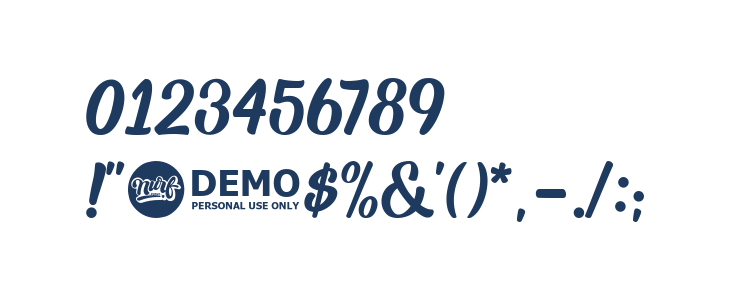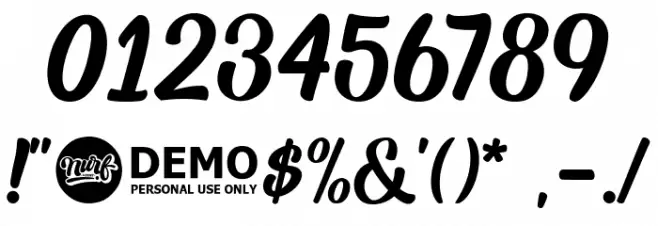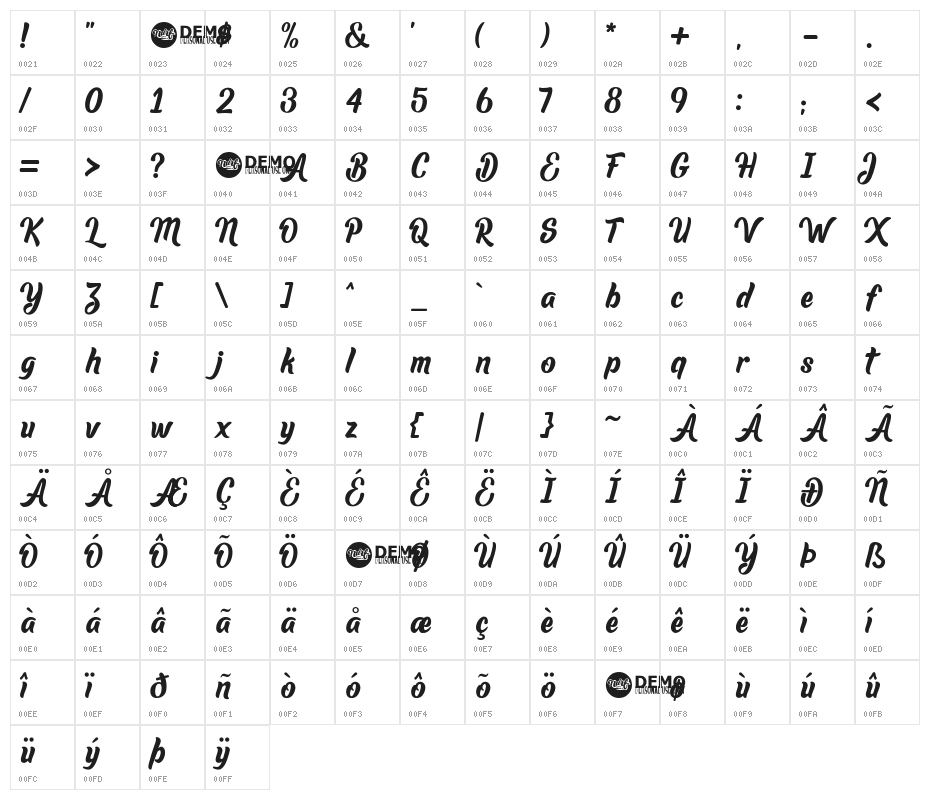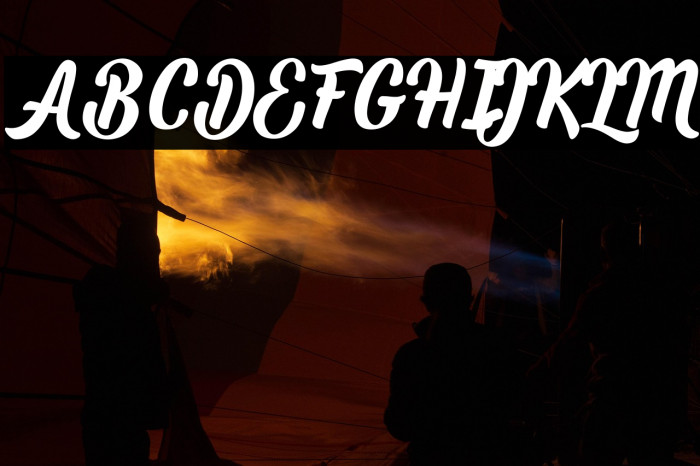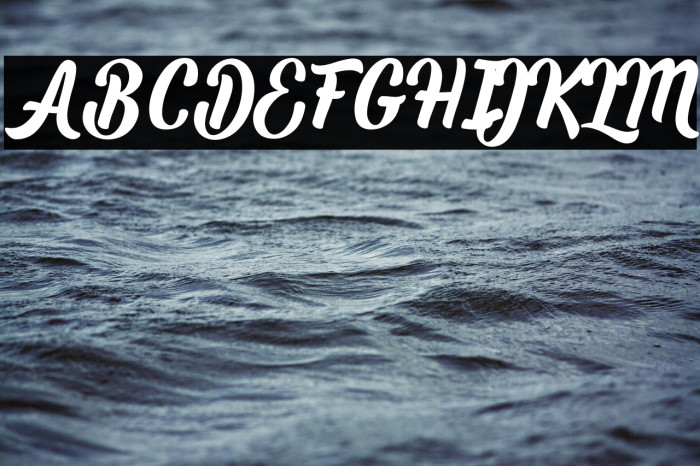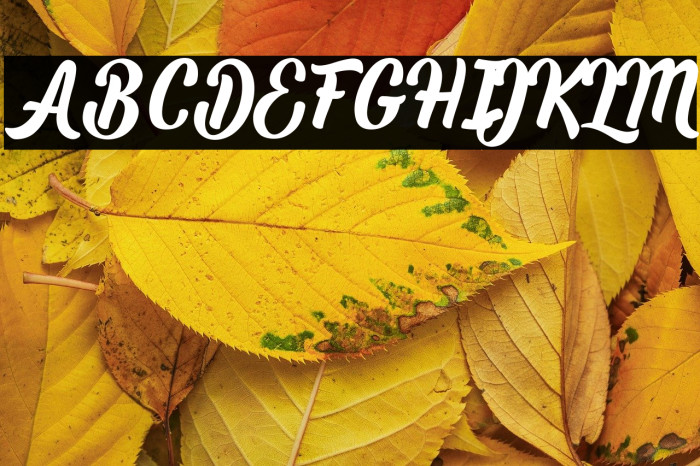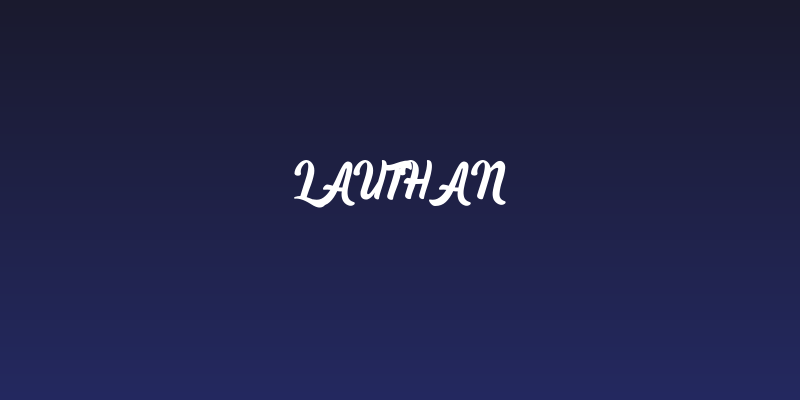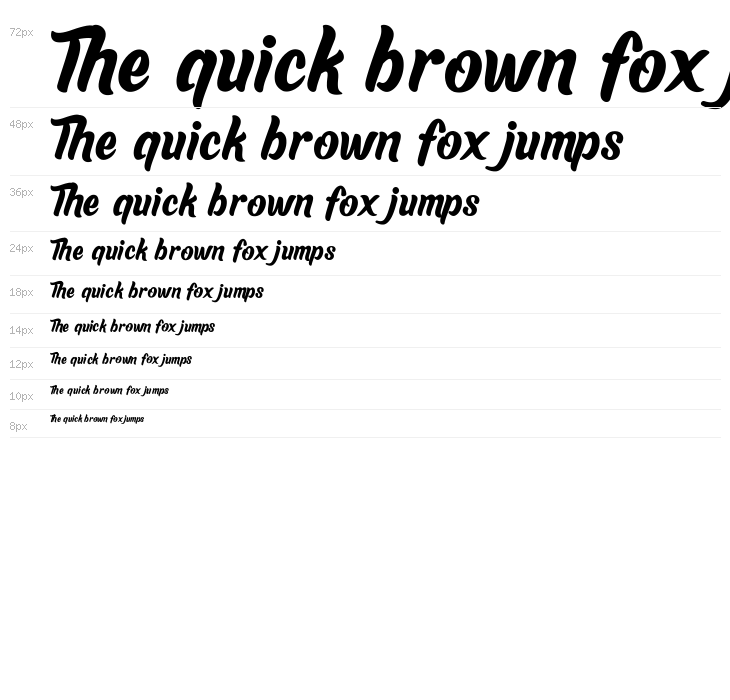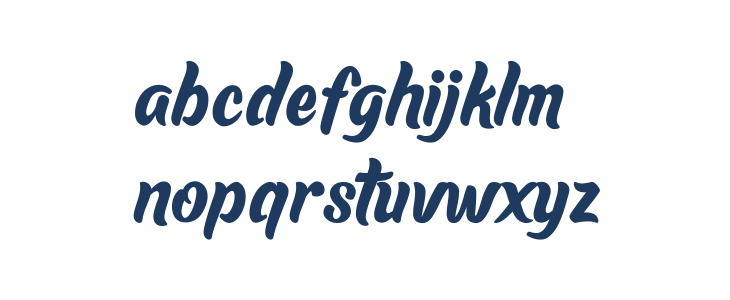
Lauthan Font
Lauthan Description
This font features a bold, flowing script style that exudes a sense of elegance and dynamism. The characters are crafted with smooth, rounded edges and a consistent stroke width, giving it a cohesive and polished appearance. The uppercase letters are slightly larger and more ornate, while the lowercase letters maintain a balanced and harmonious flow. The numerals and special characters are designed to complement the overall aesthetic, ensuring versatility across various applications. This font is ideal for projects that require a touch of sophistication and flair.
A bold, elegant script font with smooth, flowing characters from Uncategorized fonts.
- Font: Lauthan
- Proposed Projects: Ideal for wedding invitations, branding, logo design, and elegant packaging.
- Overall Style: Elegant
- Use Case: Logos, Invitations, Branding